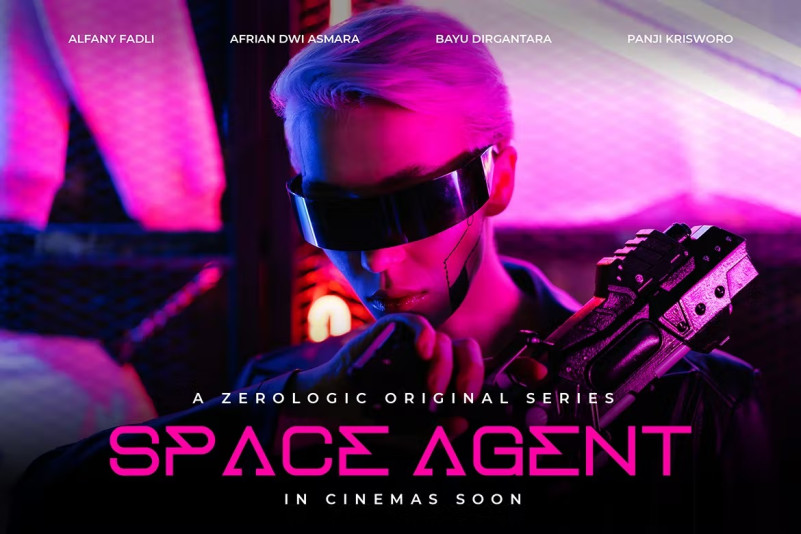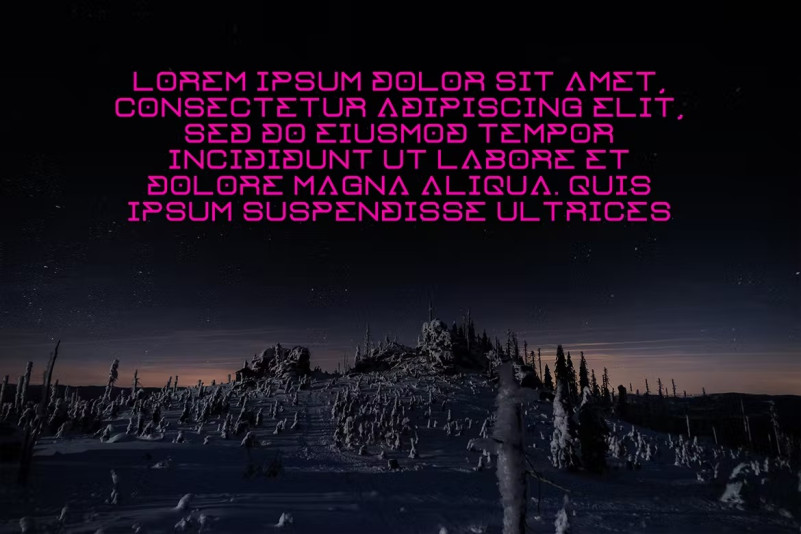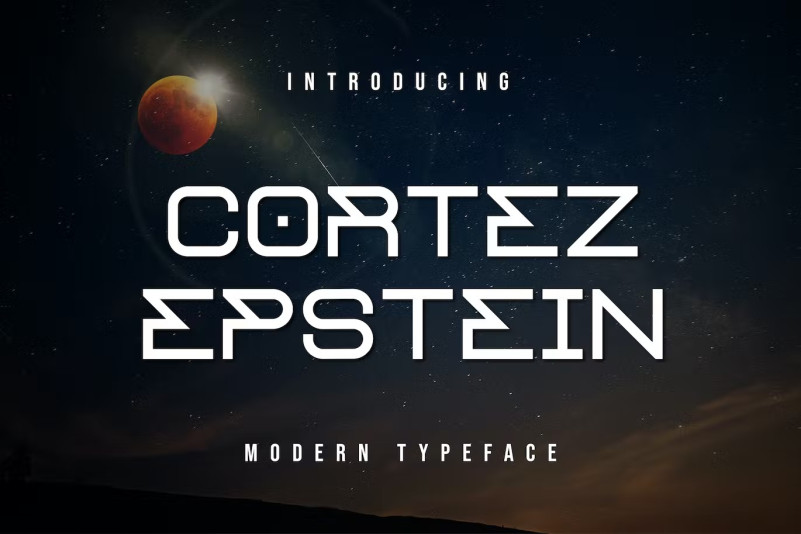
Cortez Epstein Font
Cortez Epstein Display Font is a modern futuristic font that we designed with original touch for your needs. This cool font is complete with Uppercase, Lowercase, Numeric & symbols. This very strong and sharp font is perfect for titles, typography, posters, magazines, brochures, packaging, Websites and much more for your design needs, making your designs more cool.